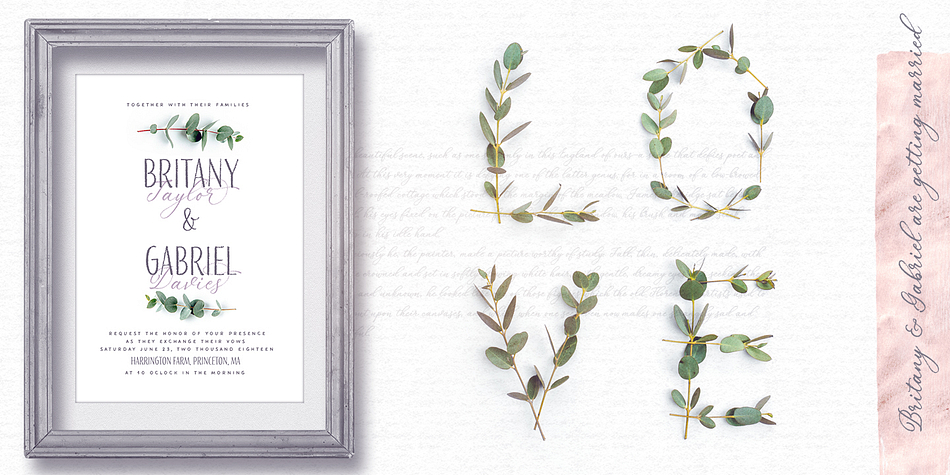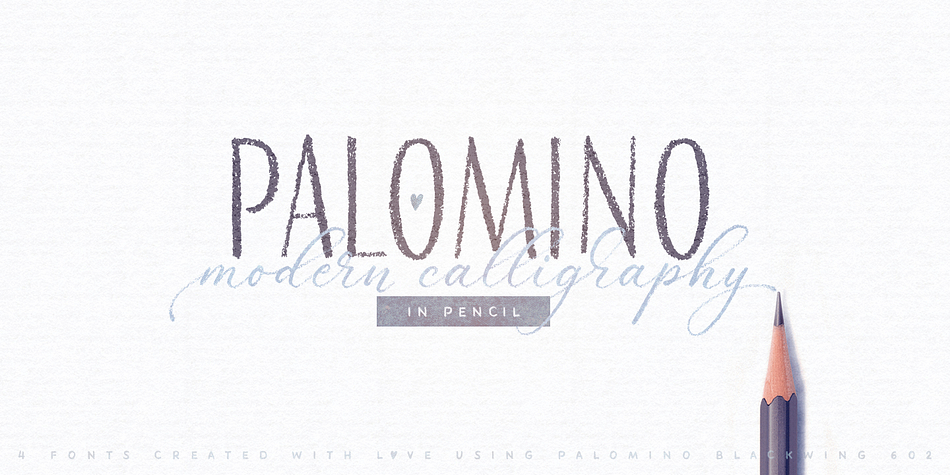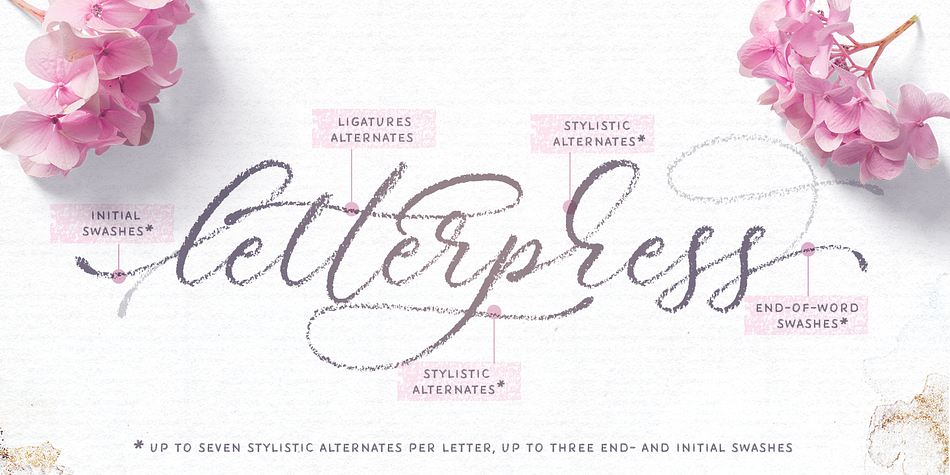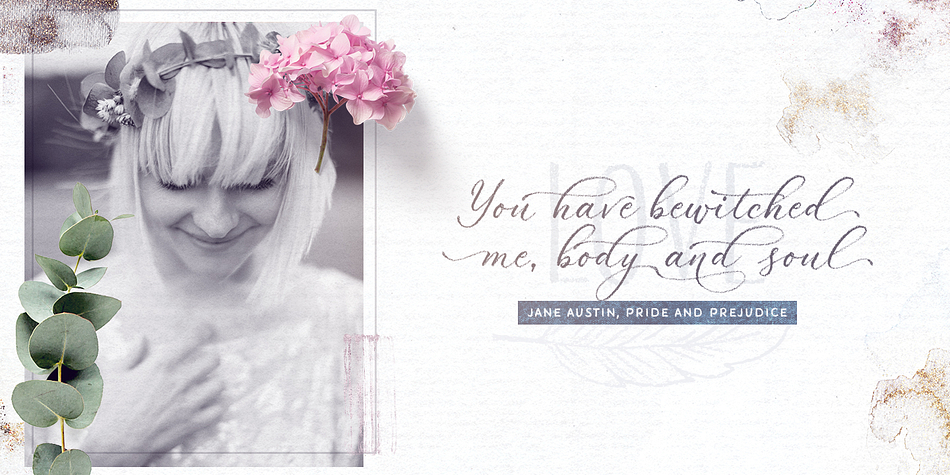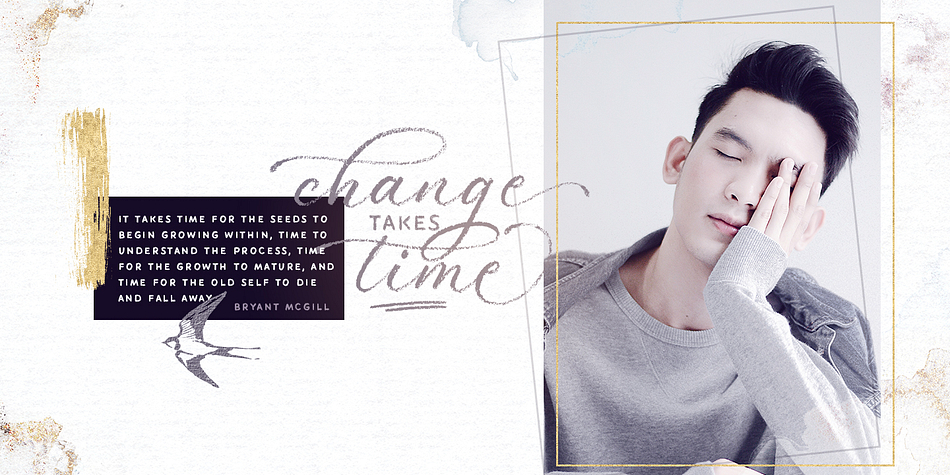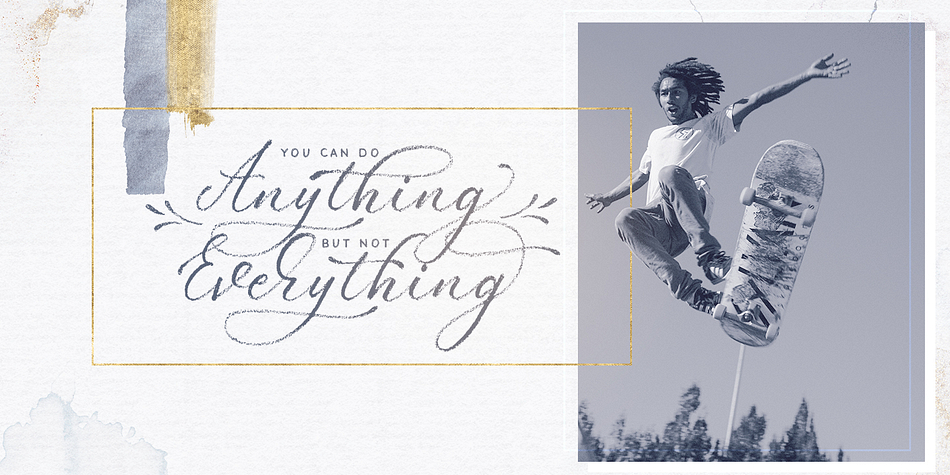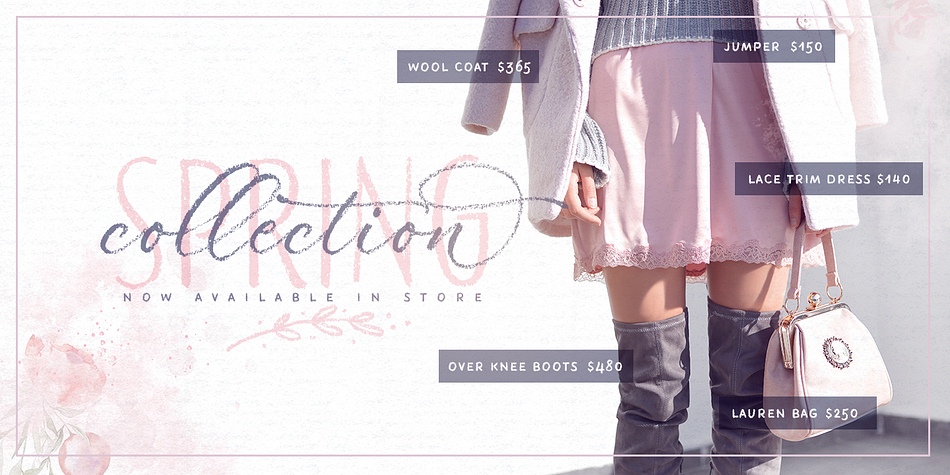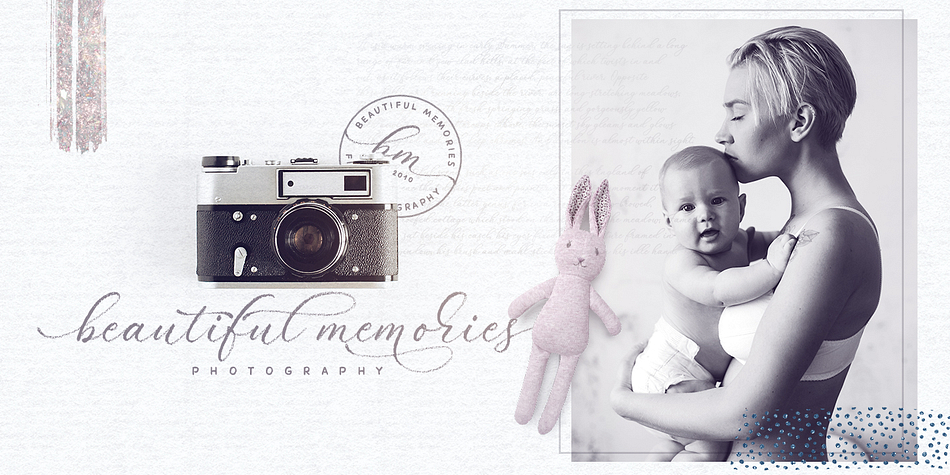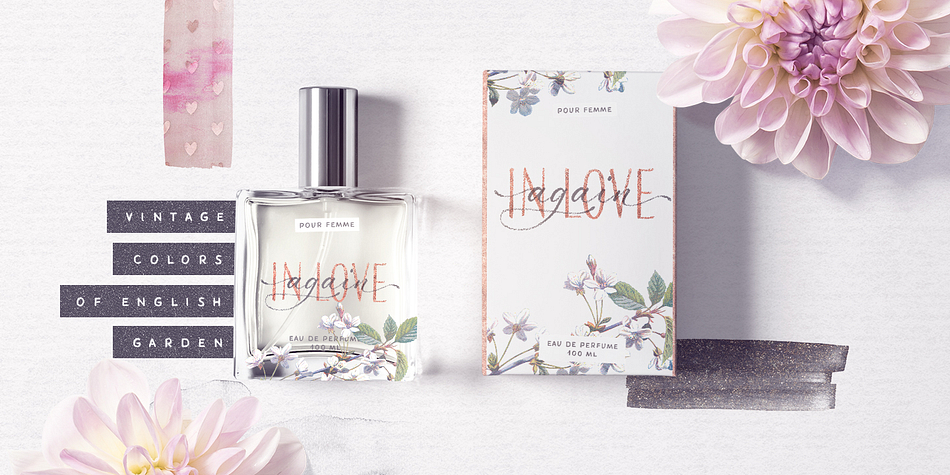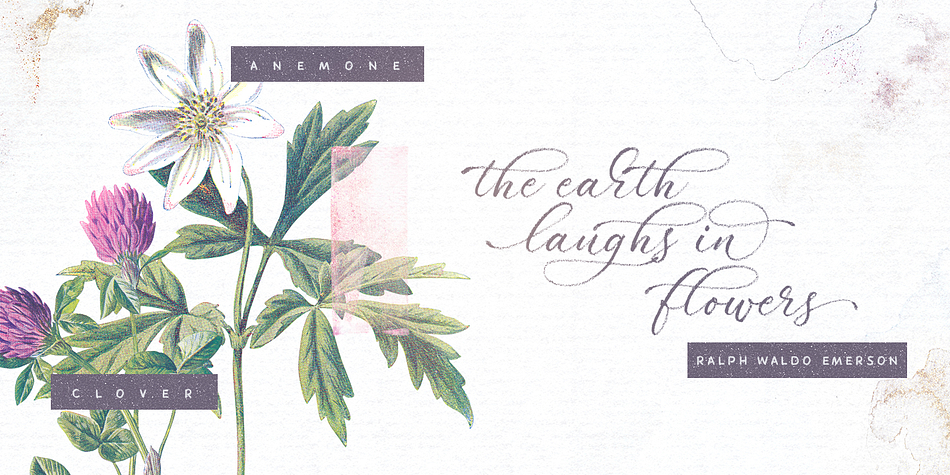
Designed by Elena Genova, Palomino is a multiple classification font family. This typeface has four styles and was published by My Creative Land.
Please welcome Palomino - a new modern calligraphy font family created using an amazing Palomino Blackwing 602 pencils (it took 3 pencils to create the whole family!). All fonts work perfectly well together allowing you to create stylish elegant designs with hand written look.
The script font is loaded with initial, medial and terminal alternates and swashes. Along with a help of three other fonts - condensed sans, simple sans and design elements font - you’ll be able to create stunning designs with a click of a mouse.
This versatile font family will work perfectly for fashion, e-commerce brands, wedding boutiques, photography, quotes design and a lot more. It has extensive language support and fully unicode mapped.